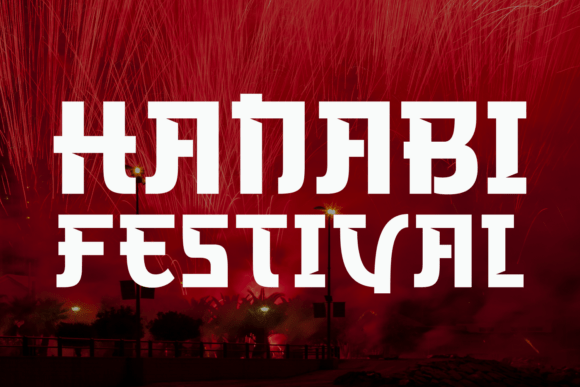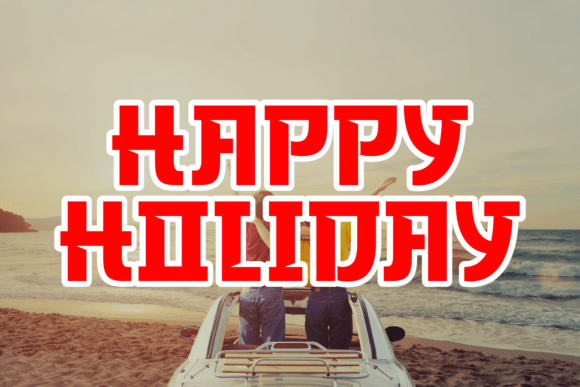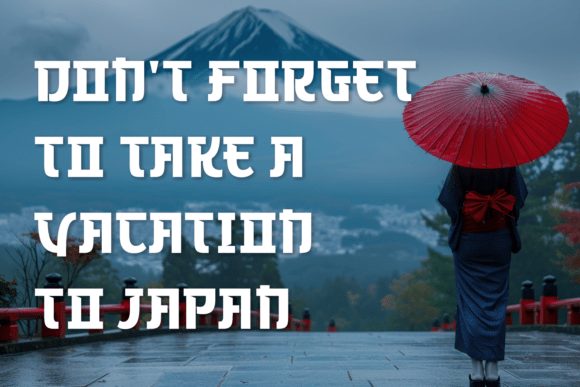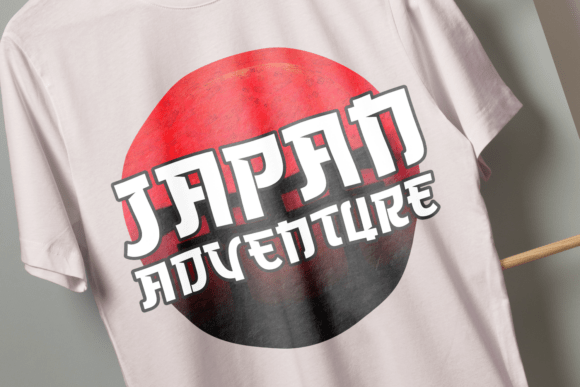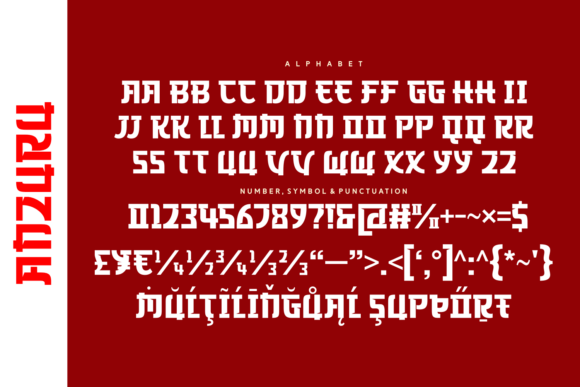
Introduction to Anzuru Font
Imagine you’re a graphic designer tasked with creating a stunning holiday campaign for a clothing brand. As you scroll through your font library, one name catches your eye: “Anzuru”. This distinctive display font has a way of elevating your creative project from ordinary to extraordinary. Its unique blend of traditional Japanese roots and modern flair makes it the perfect choice for designers looking to add a touch of sophistication to their work.
But what makes the Anzuru Font so valuable to designers? For starters, its clean, high-quality aesthetic lends itself seamlessly to branding, logos, and packaging. Whether you’re working on a digital project or a print-based campaign, this versatile font is sure to impress. And the best part? It’s available for free download, making it an accessible design resource for creatives of all levels.
- High-quality design resource ideal for creative projects, offering a unique and stylish touch.
- Unique characteristics, such as intricate details and subtle nuances, set the Anzuru Font apart from other design resources.
- Perfect for designers seeking a high-quality, free font that can elevate their creative project to the next level.
Honest Review: Anzuru Font
As a designer, I’m always on the lookout for high-quality design resources to elevate my creative projects. Recently, I stumbled upon the Anzuru Font, which has been making waves in the design community. I decided to put it to the test and share my honest review.
- ✨ High-quality font with a unique, modern design
- ⚠️ Limited character set, which may not be suitable for extensive text-based projects
- ⚠️ Not ideal for small-scale designs, as the font size may become too large
Overall, the Anzuru Font is a great addition to any designer’s toolkit. While it has its limitations, its unique design and free download make it an excellent resource for creative projects. If you’re looking for a high-quality font to elevate your designs, the Anzuru Font is definitely worth checking out.
Anzuru Font
The Anzuru Font is a high-quality, free download design resource perfect for any creative project. With its transparent background, this versatile font can be used across various design platforms.
Tips for Getting the Most Out of Anzuru Font
For the best results, use the Anzuru Font in conjunction with other high-quality design resources. Experiment with different font sizes and colors to add visual interest to your design.
The Anzuru Font is perfect for a variety of design projects, including infographics, social media graphics, and presentations. Its transparent background makes it easy to layer over other design elements.